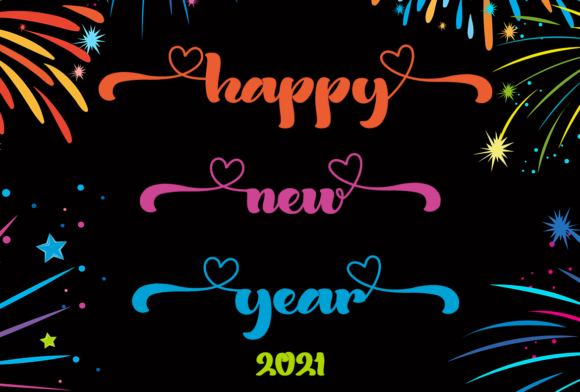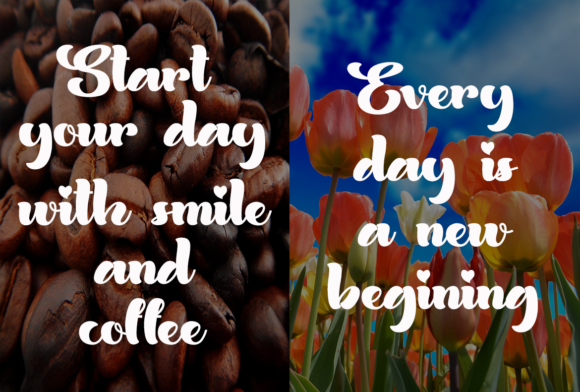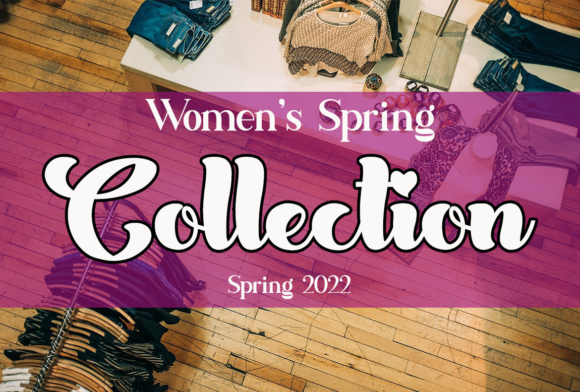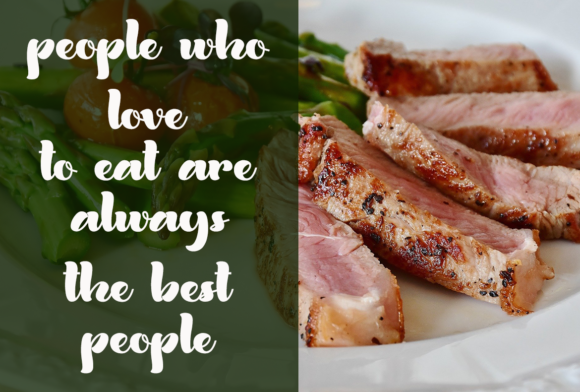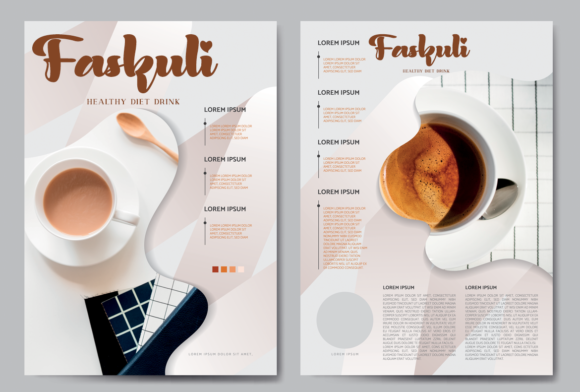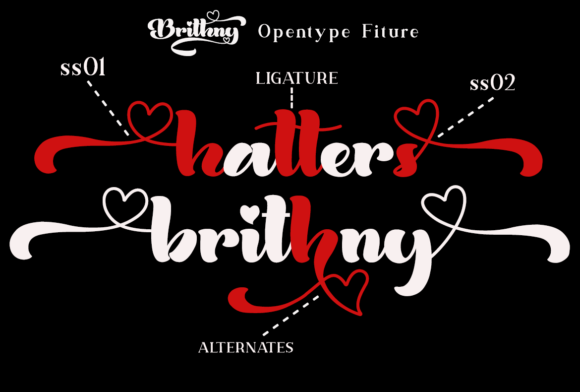
Introducing Brithny Font: The Sweet and Bold Script Font for Creative Projects
Are you a designer or crafter looking for a font that can add a touch of elegance and sophistication to your creative projects? Look no further than Brithny Font, a sweet and bold script font that is perfect for a wide range of applications. In this article, we’ll take a closer look at Brithny Font, its features, and how you can use it to elevate your designs.
What is Brithny Font?
Brithny Font is a beautiful script font that is designed to add a touch of sweetness and boldness to your designs. It features alternates and lovely swashes, making it perfect for creating stunning logotypes, apparel, invitations, magazines, branding, packaging, advertising, fashion, makeup, stationery, novels, labels, and so much more.
Key Features of Brithny Font
- Sweet and Bold Design: Brithny Font has a unique design that is both sweet and bold, making it perfect for creating eye-catching designs.
- Alternates and Swashes: The font features alternates and lovely swashes, allowing you to add a touch of elegance and sophistication to your designs.
- Highly Versatile: Brithny Font is perfect for a wide range of applications, including logotype, apparel, invitation, magazines, branding, packaging, advertising, fashion, makeup, stationery, novels, labels, and more.
How to Use Brithny Font
Brithny Font is perfect for designers and crafters who want to add a touch of elegance and sophistication to their designs. Here are some ideas on how to use Brithny Font:
- Logotype: Use Brithny Font to create stunning logotypes for your brand or business.
- Apparel: Add a touch of elegance to your apparel designs with Brithny Font.
- Invitation: Create beautiful invitations for weddings, parties, and other events with Brithny Font.
- Magazines: Use Brithny Font to add a touch of sophistication to your magazine designs.
- Branding: Create a strong brand identity with Brithny Font.
- Packaging: Add a touch of elegance to your packaging designs with Brithny Font.
- Advertising: Use Brithny Font to create eye-catching advertisements.
- Fashion: Add a touch of sophistication to your fashion designs with Brithny Font.
- Makeup: Create stunning makeup designs with Brithny Font.
- Stationery: Use Brithny Font to create beautiful stationery designs.
- Novels: Add a touch of elegance to your novel designs with Brithny Font.
- Labels: Create stunning labels with Brithny Font.
Why Choose Brithny Font?
There are many reasons why you should choose Brithny Font for your creative projects. Here are a few:
- Unique Design: Brithny Font has a unique design that is both sweet and bold, making it perfect for creating eye-catching designs.
- High-Quality: The font is of high quality, making it perfect for professional designs.
| Font Name | Brithny Font |
| Author | Sealoung |
In conclusion, Brithny Font is a beautiful script font that is perfect for designers and crafters who want to add a touch of elegance and sophistication to their creative projects. With its unique design, alternates, and lovely swashes, Brithny Font is perfect for a wide range of applications. Whether you’re creating logotypes, apparel, invitations, magazines, branding, packaging, advertising, fashion, makeup, stationery, novels, labels, or more, Brithny Font is the perfect choice.